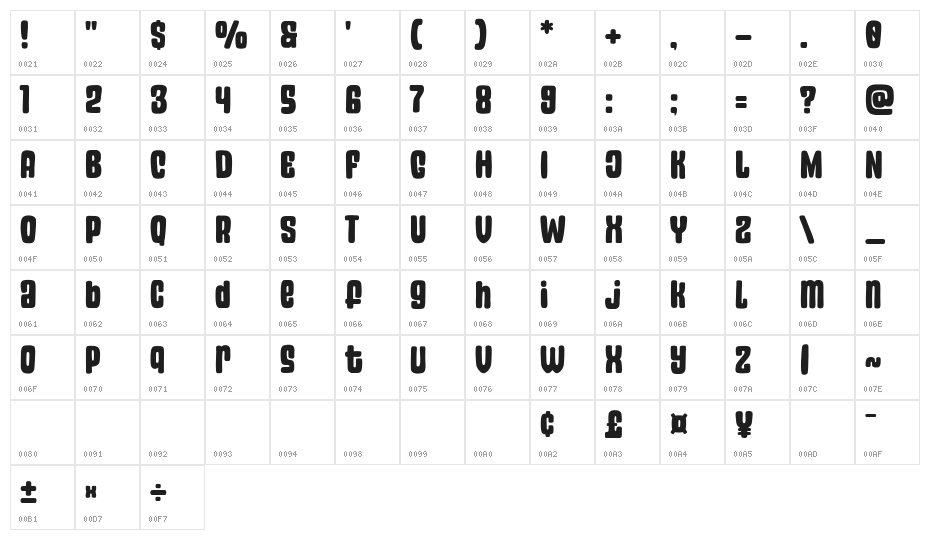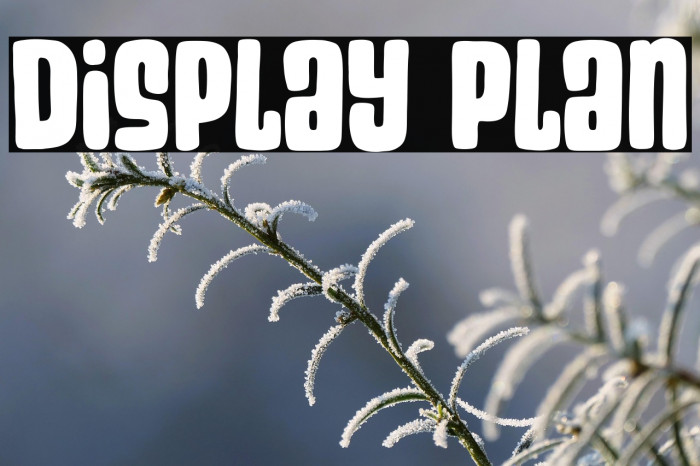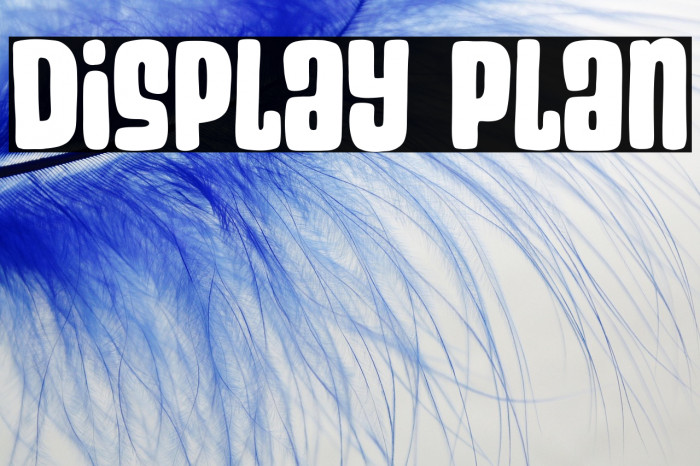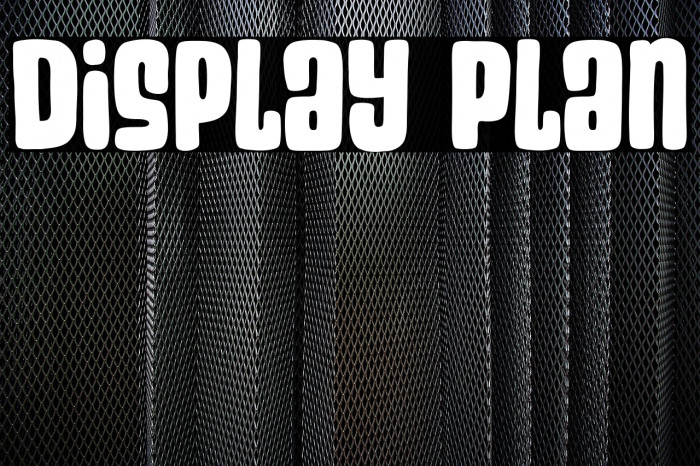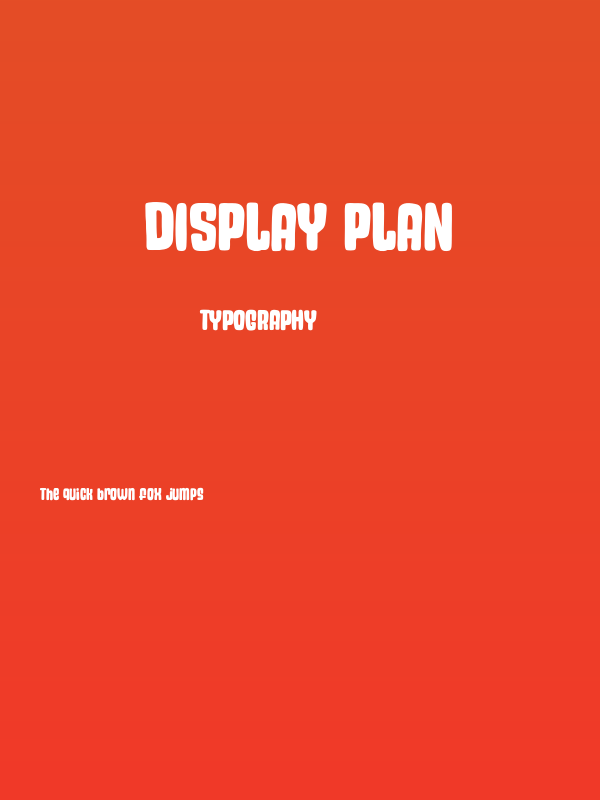
Display Plan Font
Display Plan Description
This font features bold, rounded characters with a playful and chunky appearance. The letters are uniformly thick, giving a strong visual impact. The style is reminiscent of retro or vintage designs, with a touch of modern flair. The characters are tightly spaced, enhancing the boldness and making it ideal for attention-grabbing headlines. The numbers and special characters maintain the same bold and rounded style, ensuring consistency throughout the font set.
| Overall Style | Retro, Playful, Modern |
| Proposed Projects | Ideal for poster designs, branding projects, children's books, and any creative work that requires a bold and playful aesthetic. |